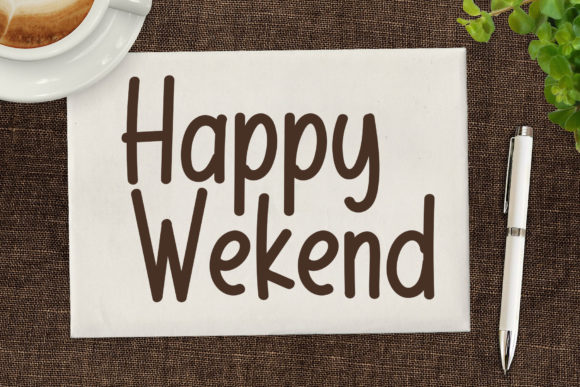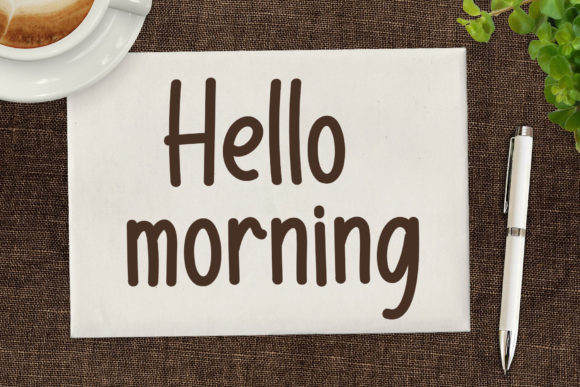
Graduation Ceremony Font
db-ku.com - Script & Handwritten -- Graduation Ceremony is a friendly handwritten font, carefully designed to become a true favorite. It maintains its classy calligraphic influences while feeling contemporary and fresh.